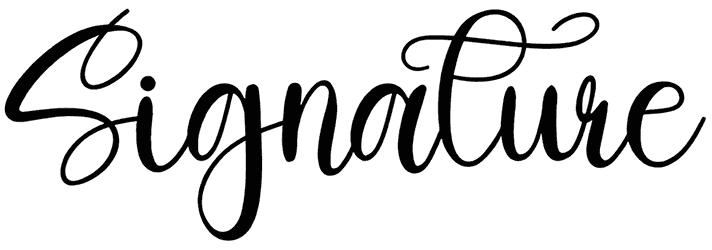
Signature Font
In order to fill the gap between your creative ideas and the audience, you must adopt a lovely script font such as Signature in your editorial projects, the same as movie posters, book covers, applications, product packaging, or billboards.